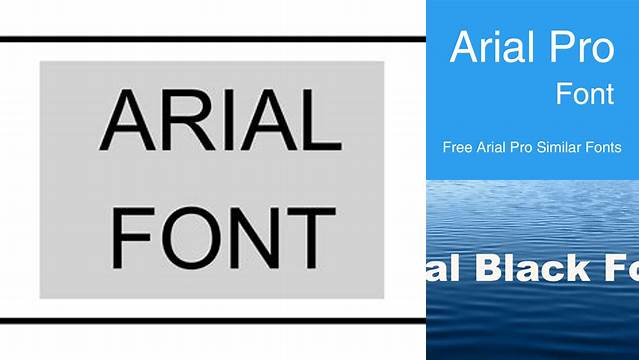
Hey guys! Ever needed a classic, clean font for your project? Arial is like that dependable friend in the font world – always there when you need it. Let's dive into everything about the Arial font family and how you can snag it for free on DaFont. We're going to break down 30 different aspects of this font, from its history to its best uses, so you'll be an Arial expert by the end of this article!
1. Arial Font Family Overview
So, what exactly is the Arial font family? Simply put, it’s a widely used sans-serif typeface. Think of it as the Helvetica of the Microsoft world. Arial is known for its versatility and readability, making it a go-to choice for everything from body text to headlines. The font family includes various weights and styles, such as Arial Regular, Arial Bold, Arial Italic, and Arial Bold Italic, providing flexibility for different design needs. Arial's clean lines and neutral appearance make it suitable for a wide range of applications, from documents and websites to graphic designs and presentations. Understanding the full scope of the Arial font family is the first step in appreciating its value and utility in your design toolkit.
2. History of Arial Font
The history of Arial is actually pretty interesting! Designed in 1982 by a team at Monotype, it was initially created to be a metrically compatible alternative to Helvetica for IBM's laser printers. Basically, they wanted a font that looked similar but didn't require licensing fees for Helvetica. Arial quickly became a standard font in Microsoft Windows, which is why you see it everywhere. This strategic move made Arial incredibly widespread, though it also sparked some debates about its similarity to Helvetica. Knowing its history helps you understand why Arial is so ubiquitous and how it fits into the broader world of typography.
3. Arial vs. Helvetica: What's the Difference?
Okay, let's address the elephant in the room: Arial versus Helvetica. While they look super similar at first glance, there are subtle differences. For example, Arial has more angled terminals (the ends of the strokes), while Helvetica’s are typically cut horizontally. The lowercase 'a' and 'g' also have distinct shapes in each font. Helvetica generally has a more uniform stroke weight, giving it a slightly more refined appearance. However, the average person might not even notice these differences! Understanding these nuances can help you make an informed choice based on your design needs. If you're aiming for a more classic, Swiss-style look, Helvetica might be your go-to. But if you need a widely compatible and readily available font, Arial is a solid choice.
4. Why Arial is a Popular Choice
Why is Arial so darn popular? Well, there are a few reasons. First off, it comes pre-installed on most computers, so it's super accessible. Second, it's incredibly readable, making it great for both print and digital media. Plus, its neutral design means it works well in a variety of contexts. From business documents to website body text, Arial is a workhorse font that gets the job done. Its versatility and ease of use make it a favorite among designers and non-designers alike. Plus, let's be real, free and pre-installed is a pretty sweet deal!
6. Arial Font Styles and Weights
The beauty of Arial lies in its versatility, and a big part of that comes from its various styles and weights. You've got Arial Regular, which is your everyday, go-to option. Then there’s Arial Bold for when you need to make a statement. Arial Italic adds a touch of elegance or emphasis, and Arial Bold Italic combines both for maximum impact. Each style serves a different purpose, allowing you to create visual hierarchy and add interest to your designs. Understanding these variations helps you use Arial effectively in any project. Whether you’re designing a website, a presentation, or a printed document, knowing which style to use can make all the difference.
7. Arial Regular: Uses and Applications
Arial Regular is the backbone of the font family. It's your dependable, all-purpose option that works wonders for body text, paragraphs, and general content. Its clean and legible design makes it easy on the eyes, which is crucial for readability. Think about websites, reports, and even books – Arial Regular is often the unsung hero making the text flow smoothly. Arial Regular’s neutrality means it pairs well with a variety of other fonts, making it a versatile choice for any project. If you're looking for a font that just works, Arial Regular is a solid bet.
8. Arial Bold: Making a Statement
Need to grab someone's attention? Arial Bold is your guy. This weight is perfect for headlines, subheadings, and anything you want to emphasize. Arial Bold stands out without being too flashy, making it a great choice for creating visual hierarchy in your designs. Use it sparingly to highlight key information and guide the reader's eye. From website headers to call-to-action buttons, Arial Bold adds the necessary punch to make your message clear and impactful.
9. Arial Italic: Adding Elegance and Emphasis
For a touch of sophistication or emphasis, Arial Italic is the way to go. This style adds a subtle slant that can make your text stand out without being overly assertive. Use it for quotes, captions, or to highlight specific words within a paragraph. Arial Italic brings a bit of flair while maintaining readability, making it a versatile option for adding visual interest. It's a great way to break up blocks of text and draw attention to important details.
10. Arial Bold Italic: Maximum Impact
When you need to make a real statement, Arial Bold Italic is the powerhouse you're looking for. This style combines the weight of Bold with the slant of Italic, creating maximum impact. Use it for the most important headlines, callouts, or to really emphasize a key point. Arial Bold Italic commands attention and ensures your message gets noticed. Just remember to use it judiciously – too much can be overwhelming!
11. Arial in Web Design
Arial is a major player in web design. Its clean and readable appearance makes it a fantastic choice for body text, ensuring your website content is easy to read. Plus, because it’s a system font, you can be pretty confident that most users will see it as intended, without needing to load any external font files. This helps with website loading speed, which is a big deal for user experience and SEO. Arial's neutrality also means it pairs well with a variety of other fonts, giving you plenty of design flexibility. It's a reliable workhorse for any web project.
12. Arial in Print Design
In the world of print, Arial shines just as brightly. Its legibility makes it perfect for everything from brochures and flyers to business cards and reports. Arial's versatility allows it to adapt to various print formats and design styles. Whether you’re creating a sleek, modern look or a more traditional design, Arial can fit the bill. Its clean lines and balanced proportions ensure your printed materials look professional and polished. Plus, since it’s a standard font, you don’t have to worry about font substitution issues when sending your files to a printer.
13. Arial in Microsoft Office
Ah, Microsoft Office – where Arial truly reigns supreme! As a default font in Word, PowerPoint, and Excel, Arial is the go-to choice for countless documents and presentations. Its ubiquity in the Microsoft ecosystem makes it a safe and reliable option for professional communication. Arial's readability ensures your reports, memos, and presentations are clear and easy to follow. Plus, its widespread availability means you can share files with confidence, knowing the formatting will remain consistent across different computers.
14. Pairing Arial with Other Fonts
One of Arial's greatest strengths is its ability to play well with others. Its neutral design makes it a fantastic font to pair with more distinctive typefaces. For headlines, consider pairing Arial with a serif font like Times New Roman or a bolder sans-serif like Montserrat. Arial works well as the body text in these combinations, providing a clean and readable contrast to the more decorative headings. Experimenting with different font pairings can elevate your designs and create a more visually appealing result. The key is to find a balance that enhances readability and visual interest.
15. Arial's Legibility and Readability
Let’s talk legibility and readability – two crucial factors in font choice. Arial excels in both areas. Legibility refers to how easily you can distinguish individual letters, while readability is about how comfortably you can read blocks of text. Arial's clear and simple letterforms, combined with its balanced proportions, contribute to excellent legibility. This, in turn, makes it highly readable, reducing eye strain and improving comprehension. Whether it’s on a screen or in print, Arial's readability ensures your message is delivered effectively.
16. Arial in Branding and Logo Design
While Arial might not be the flashiest font, it can be a solid choice for branding and logo design, especially if you're aiming for a clean and professional look. Its neutrality allows your brand message to take center stage without the font overshadowing it. Arial's versatility means it can adapt to various brand identities, from corporate to creative. However, it’s crucial to consider the overall brand personality and ensure Arial aligns with it. Sometimes, a more distinctive font might be necessary to convey a unique brand image. But for straightforward, dependable branding, Arial is a reliable option.
17. Arial in Legal Documents
When it comes to legal documents, clarity and readability are paramount. Arial is a popular choice in this context because of its straightforward design and excellent legibility. Arial ensures that legal text is easy to read and understand, which is crucial for contracts, agreements, and other important documents. Its neutrality also lends a professional and authoritative tone, making it a suitable choice for legal correspondence. In legal settings, Arial’s simplicity and clarity are its greatest assets.
18. Arial in Academic Writing
Similar to legal documents, academic writing demands clarity and readability. Arial is often used in academic papers, essays, and dissertations because of its clean and professional appearance. Arial's legibility ensures that the content is easy to follow, which is essential for conveying complex ideas. Many academic institutions have specific formatting guidelines, and Arial often meets those requirements. Its neutrality allows the focus to remain on the research and arguments presented, rather than the typeface itself.
19. Alternatives to Arial Font
While Arial is a fantastic font, it's always good to have options. If you're looking for alternatives, consider Helvetica, which is Arial's closest relative (though it may require a license). Other great sans-serif fonts include Open Sans, Roboto, and Lato, all of which are available for free on Google Fonts. These alternatives offer similar readability and versatility while providing a slightly different aesthetic. Arial is a solid choice, but exploring alternatives can add variety and uniqueness to your designs.
20. How to Install Arial Font (If Needed)
Okay, so most of you probably already have Arial installed, but what if you don't? Or what if you want to ensure it’s properly installed? On Windows, Arial typically comes pre-installed. If for some reason it’s not there, you can usually find it in the Fonts folder within your Windows directory. On macOS, it’s also usually pre-installed. If you’re on another operating system, you might need to install it manually. However, Arial is a system font, so it's less about downloading and more about making sure it's activated. Check your operating system's font management tools for details.
21. The Different Versions of Arial
Did you know there are different versions of Arial? Over the years, the Arial font family has been updated and refined. There's Arial Unicode MS, which includes a vast range of characters and symbols, making it ideal for multilingual content. There’s also Arial Nova, a slightly updated version with subtle design improvements. Knowing these different versions helps you choose the best option for your specific needs. Arial continues to evolve, ensuring it remains a relevant and versatile typeface.
22. Arial's Impact on Design History
Arial has had a significant impact on design history, largely due to its widespread adoption as a system font. It's become a default choice for countless users, shaping the visual landscape of documents, websites, and presentations. While sometimes criticized for its similarity to Helvetica, Arial's accessibility has made it a staple in the design world. Arial has democratized typography to some extent, making a clean and readable font available to everyone. Its impact is undeniable, whether you love it or love to hate it.
23. Arial's Role in User Interface Design
In user interface (UI) design, clarity and readability are crucial. Arial is often used in UI elements such as buttons, menus, and labels because of its clean appearance. Arial ensures that users can easily read and understand the text on the screen, which is essential for a positive user experience. Its neutrality means it doesn’t distract from the functionality of the interface, allowing users to focus on the task at hand. Arial's simplicity makes it a reliable choice for UI designers.
24. Arial and Accessibility
Accessibility is a key consideration in design, and Arial performs well in this area. Its clear letterforms and balanced proportions make it easier for people with visual impairments to read. Arial's legibility ensures that content is accessible to a wider audience, promoting inclusivity in design. When designing for accessibility, Arial is a solid choice that prioritizes readability and clarity.
25. Arial in Email Marketing
In email marketing, your message needs to be clear and engaging. Arial is often used in email templates because of its readability and widespread availability. Arial ensures that your emails look consistent across different devices and email clients. Its clean appearance helps your message stand out without being overshadowed by the font itself. For effective email communication, Arial is a dependable choice.
26. Arial in Resumes and Cover Letters
First impressions matter, and your resume and cover letter are no exception. Arial is a safe and professional font choice for these documents. Its clean and straightforward design conveys competence and attention to detail. Arial's legibility ensures that recruiters can easily read your qualifications and experience. While it might not be the most exciting font, Arial’s professionalism makes it a reliable option for job applications.
27. Arial in Presentations
When creating presentations, clarity is key. Arial is a great font for presentation slides because of its readability and clean appearance. Arial ensures that your audience can easily follow your content, even from a distance. Use Arial in various weights and styles to create visual hierarchy and emphasize key points. For effective communication in presentations, Arial is a dependable choice.
28. Arial and International Character Support
Arial has robust support for international characters, making it a versatile choice for multilingual projects. Arial Unicode MS, in particular, includes a vast range of characters and symbols, accommodating a wide variety of languages. Arial's international character support ensures your message can be conveyed accurately and effectively, regardless of the language. This makes it a valuable asset for global communication.
29. Common Mistakes When Using Arial
Even a versatile font like Arial can be misused. One common mistake is overusing it – while it’s great for body text, relying on Arial for everything can make your design look monotonous. Another pitfall is using too many different weights and styles within the same design, which can create a cluttered appearance. Remember to use Arial strategically, pairing it with other fonts and using variations sparingly to achieve a balanced and visually appealing result.
30. The Future of Arial Font
What does the future hold for Arial? As a classic and widely used font, Arial is likely to remain a staple in design for years to come. While new fonts and trends may emerge, Arial’s versatility and readability ensure its continued relevance. Whether it’s used in web design, print materials, or digital documents, Arial’s legacy as a dependable and accessible typeface is secure. So, keep Arial in your font toolkit – it’s a classic for a reason!